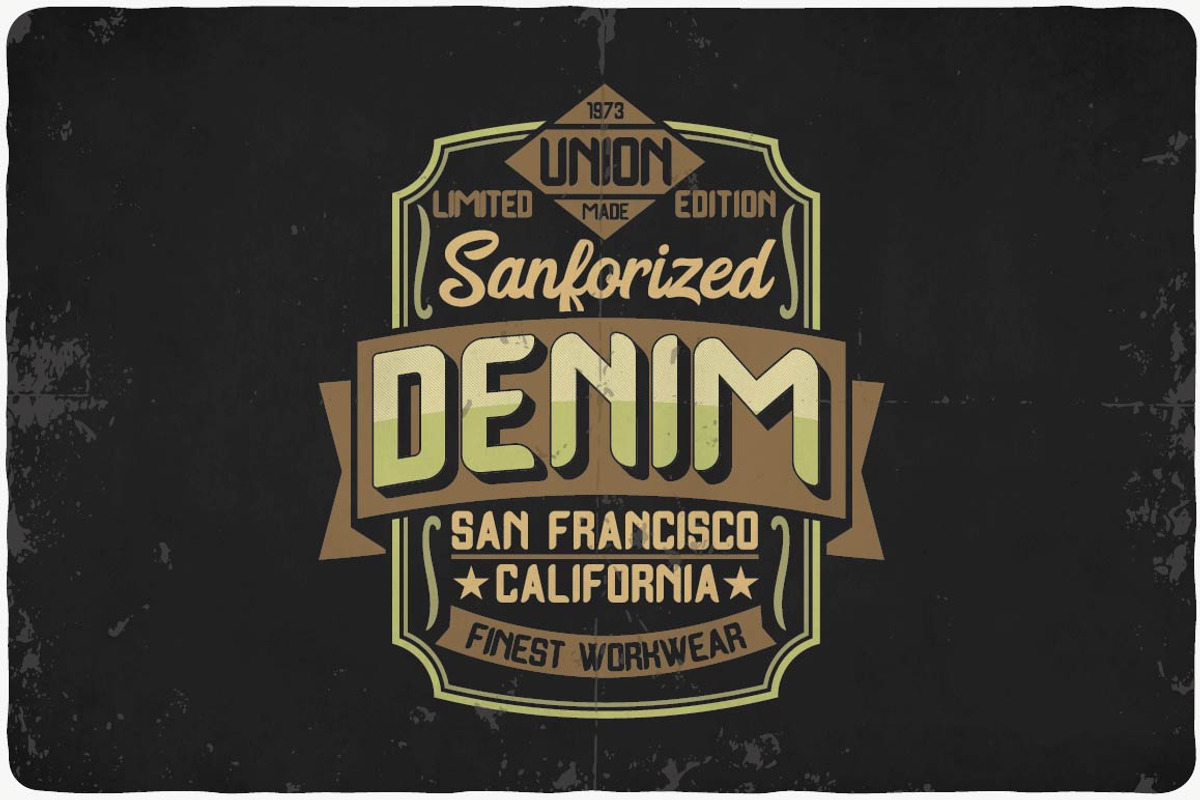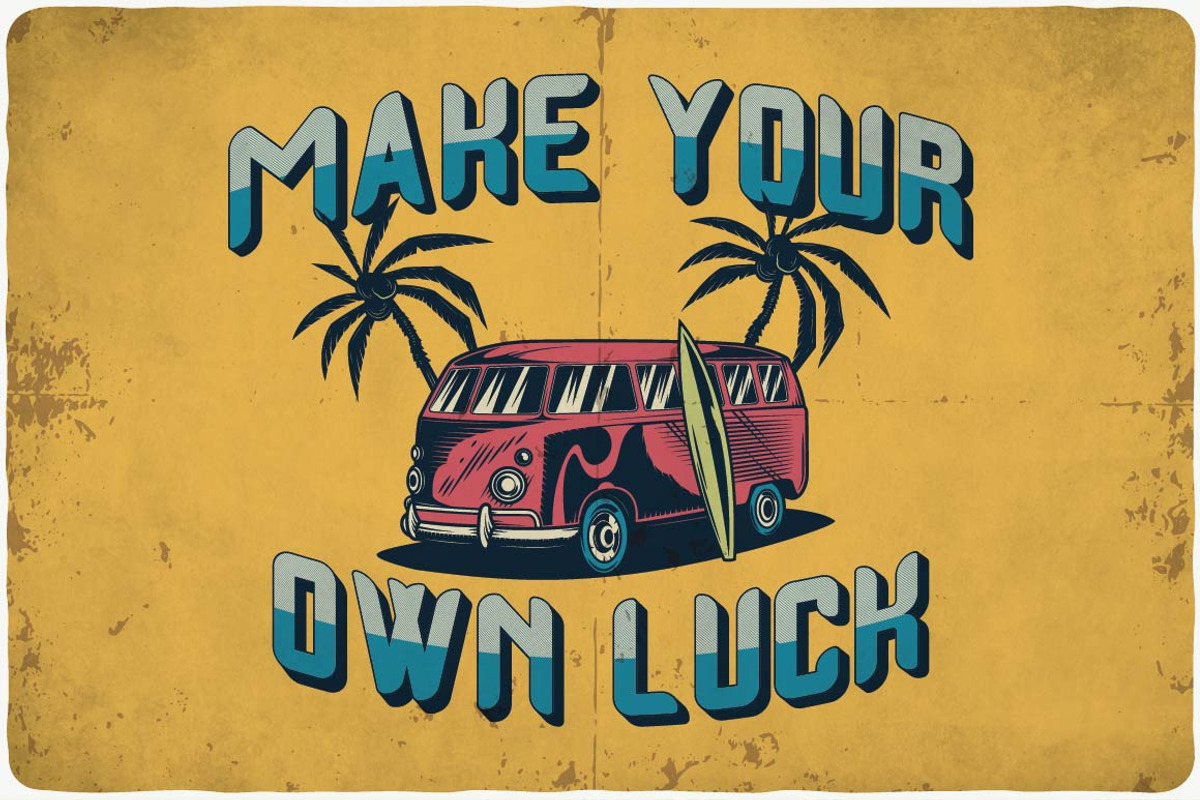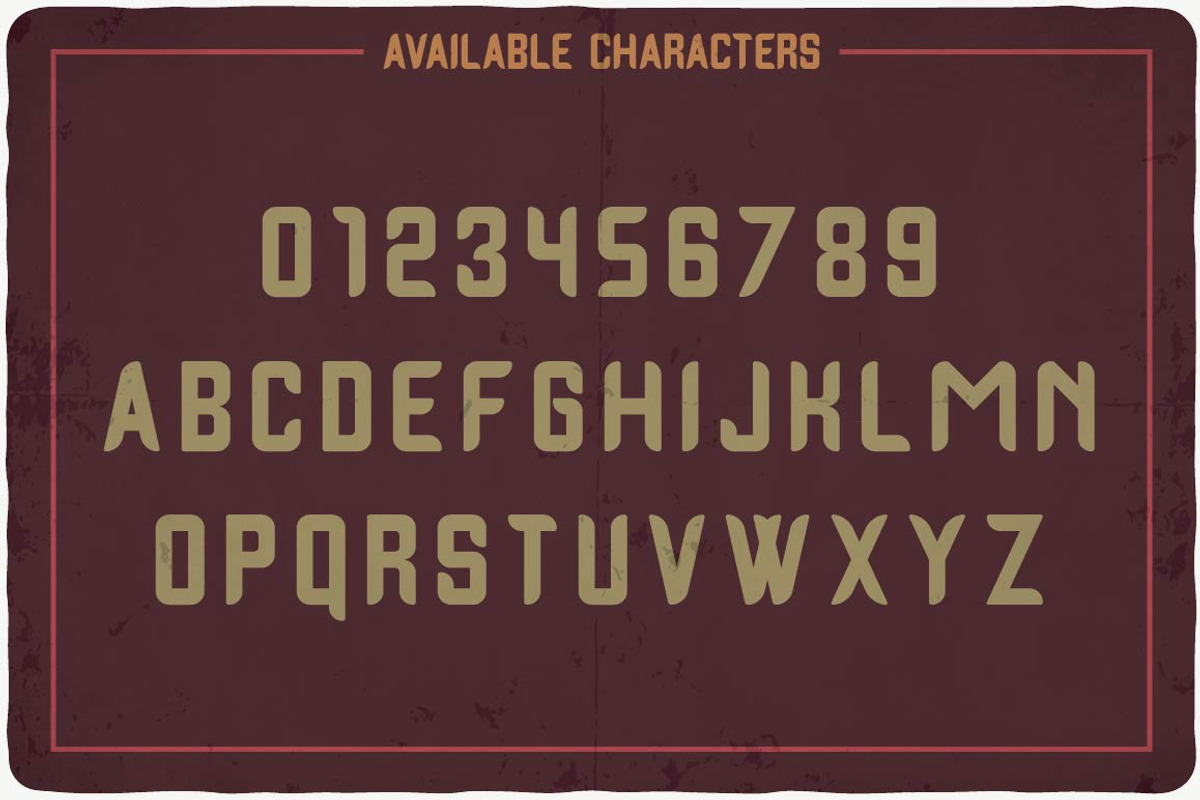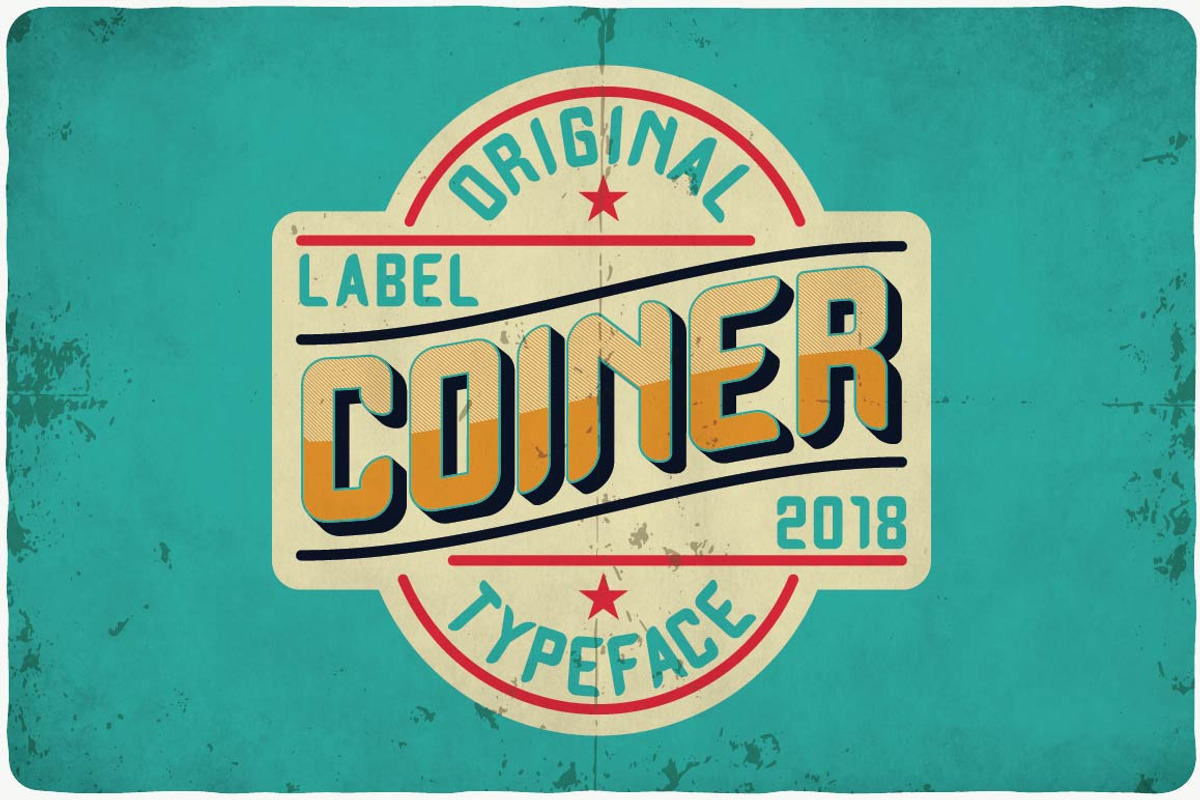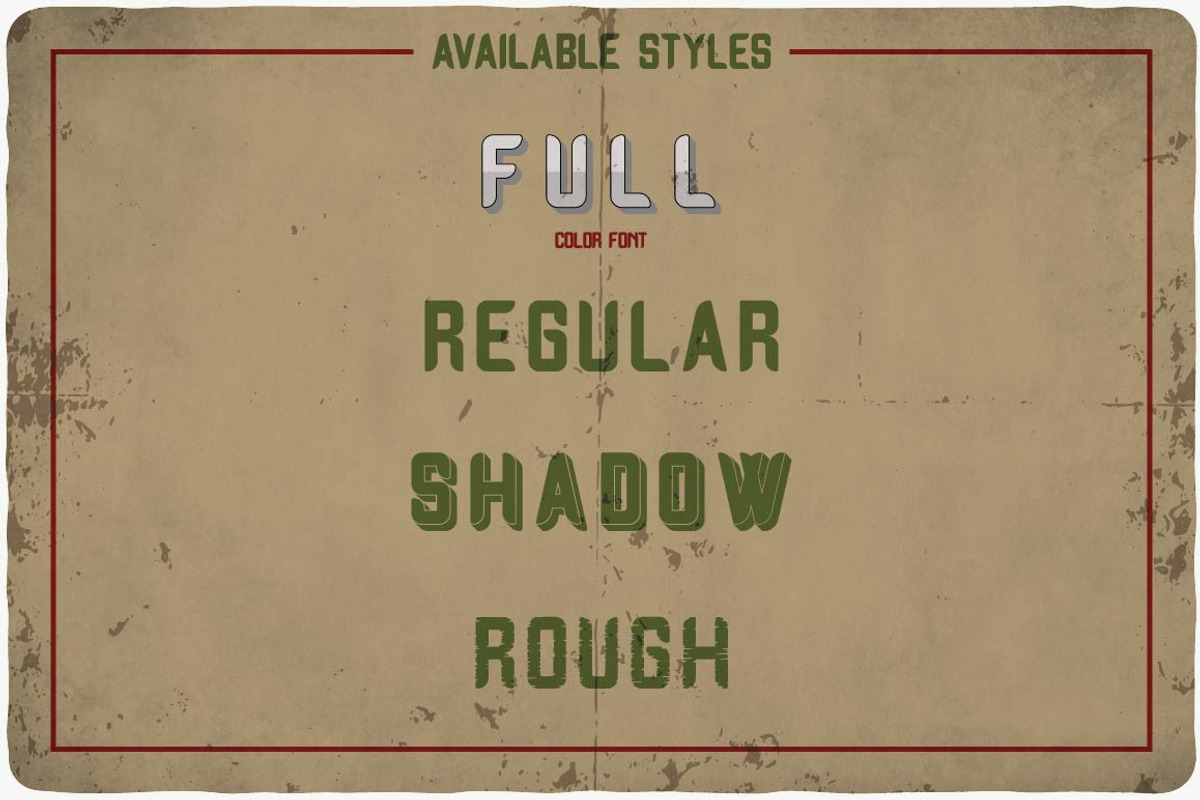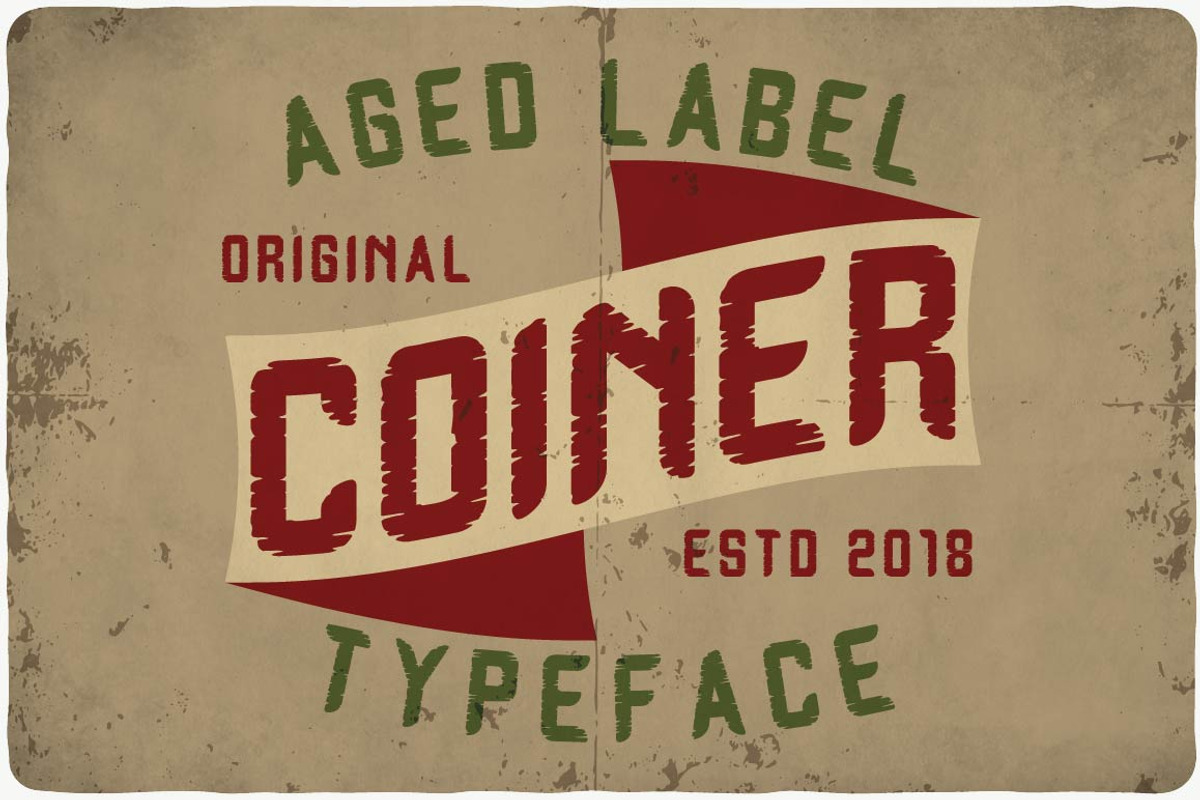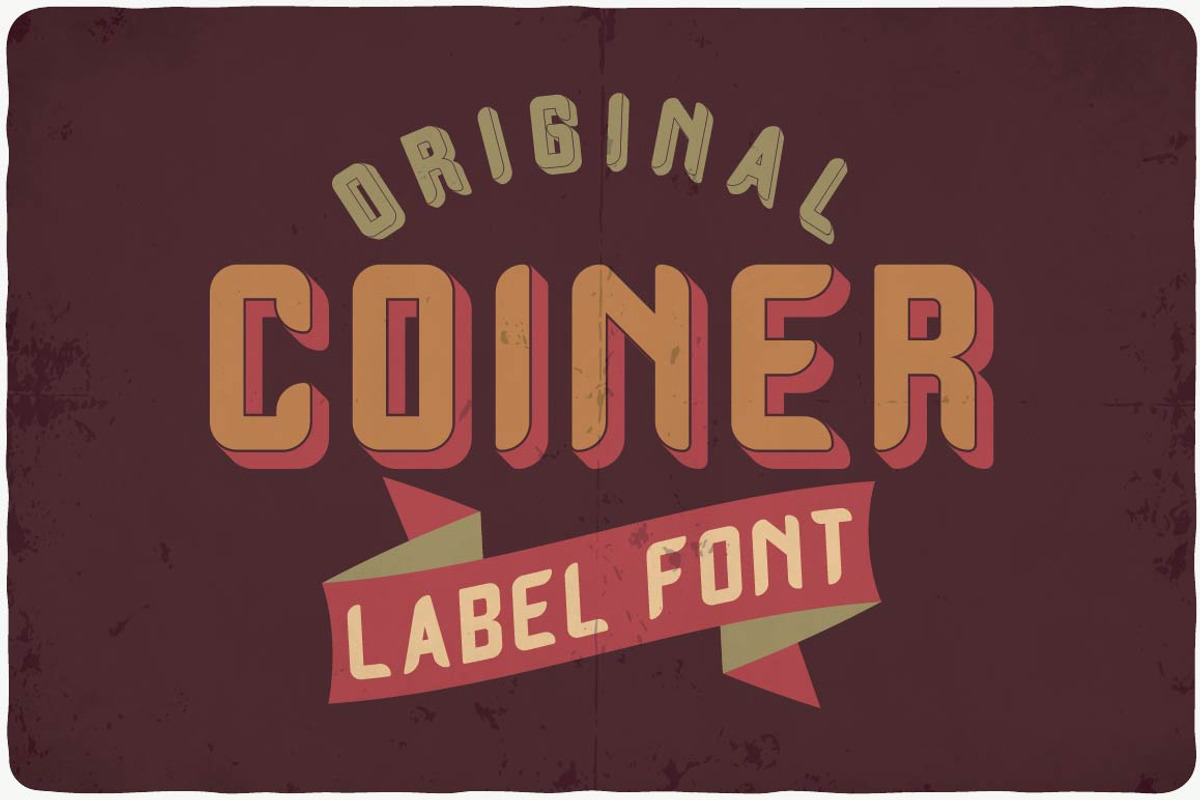
Coiner typeface
Introducing a vintage look label typeface named "Coiner". This typeface includes four styles, for sample look at 5th preview. Typeface will good viewed on any yours design.
Why Coiner typeface is worth a look
Coiner typeface by VozzyStock fits naturally into Branding, posters, packaging, typography.